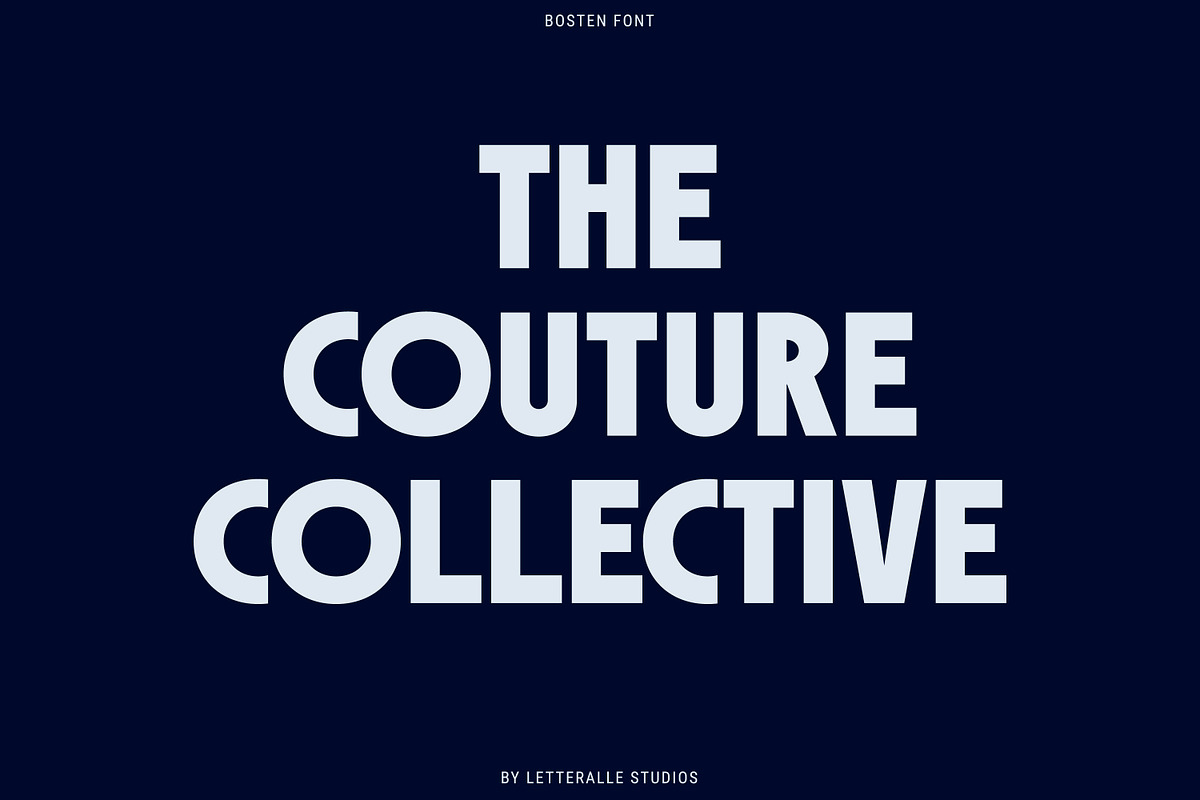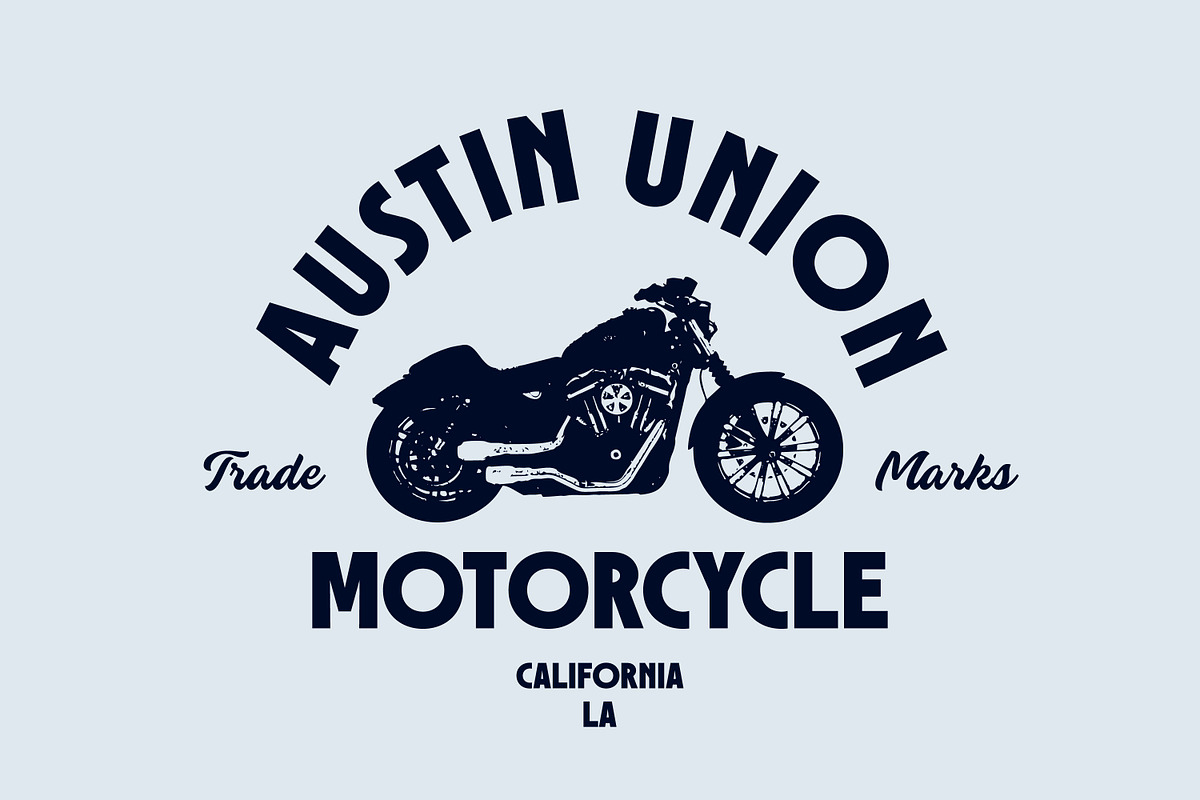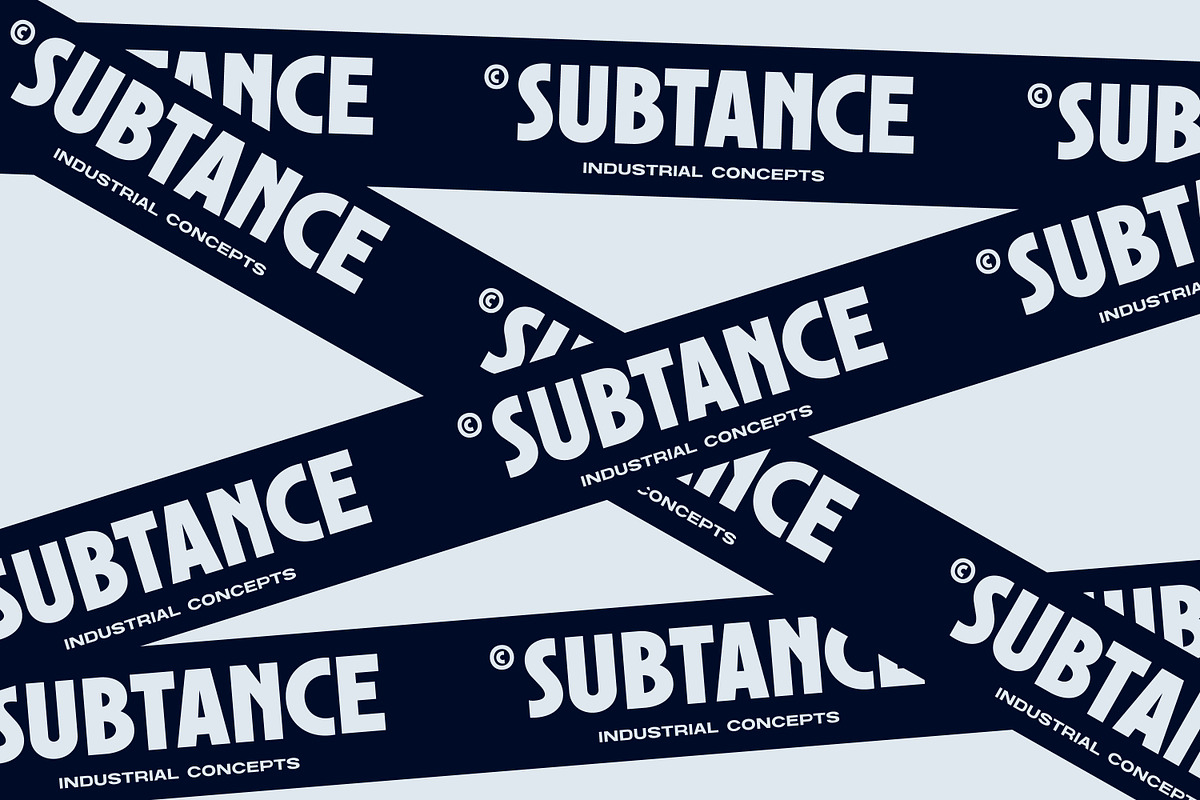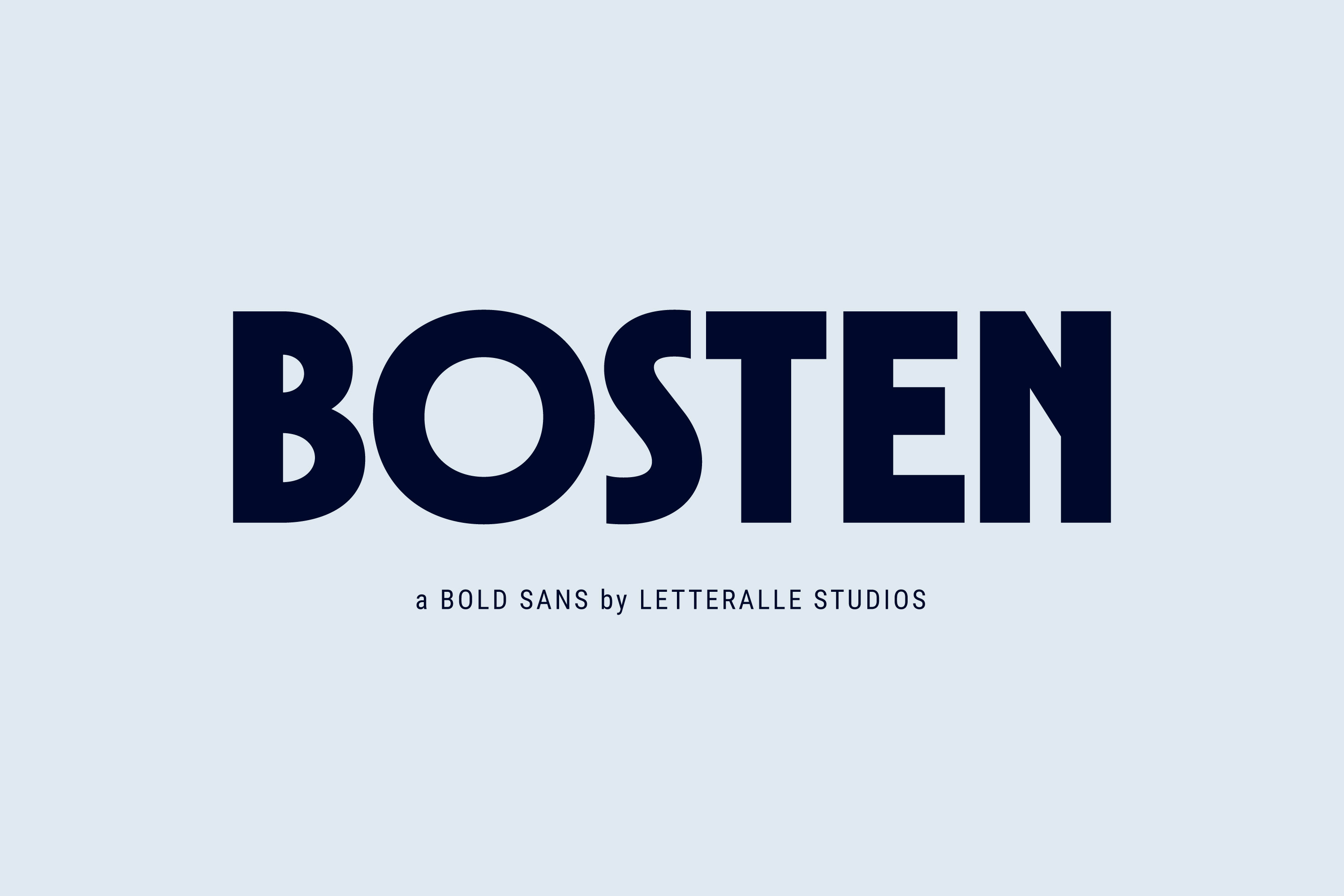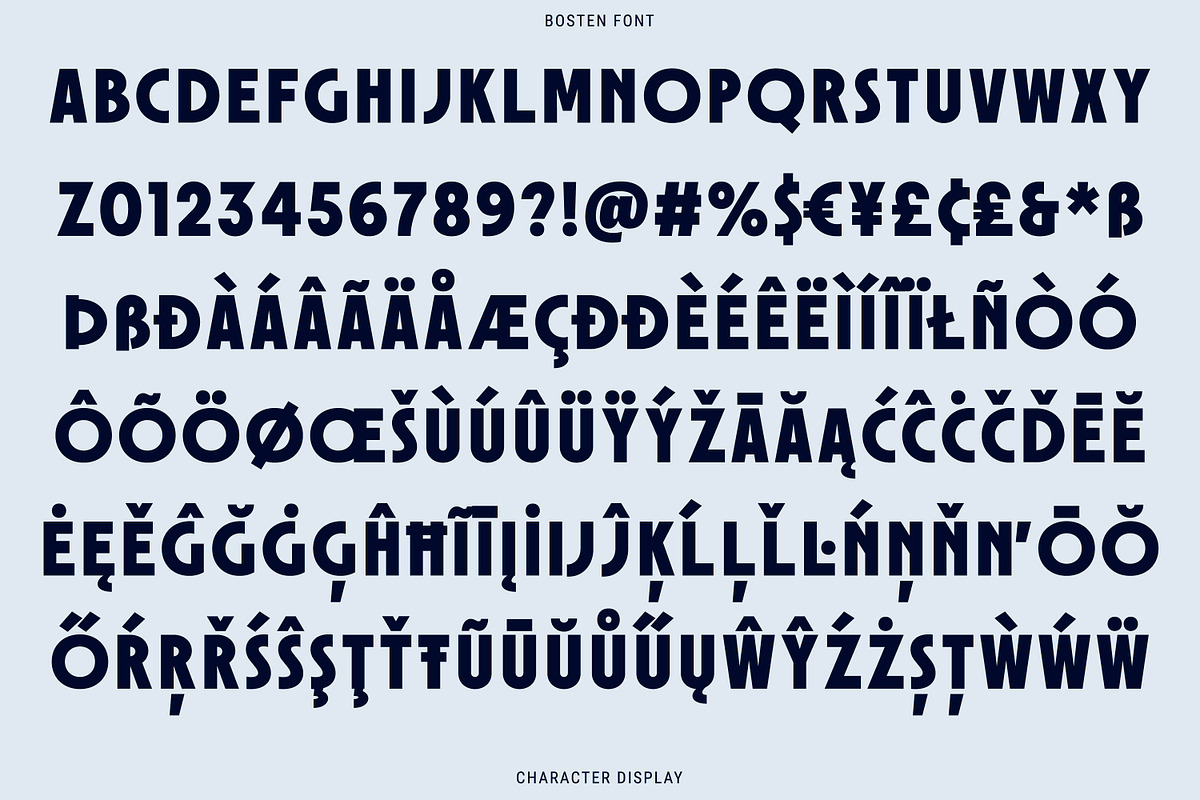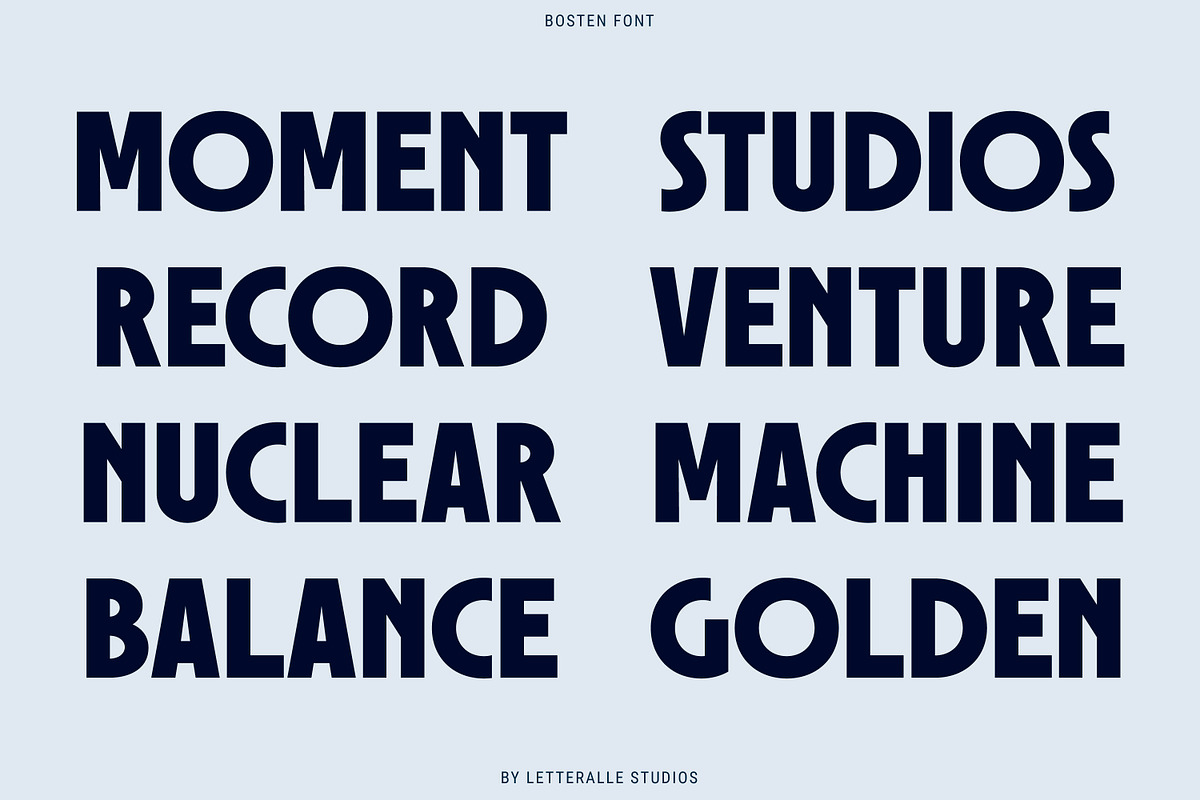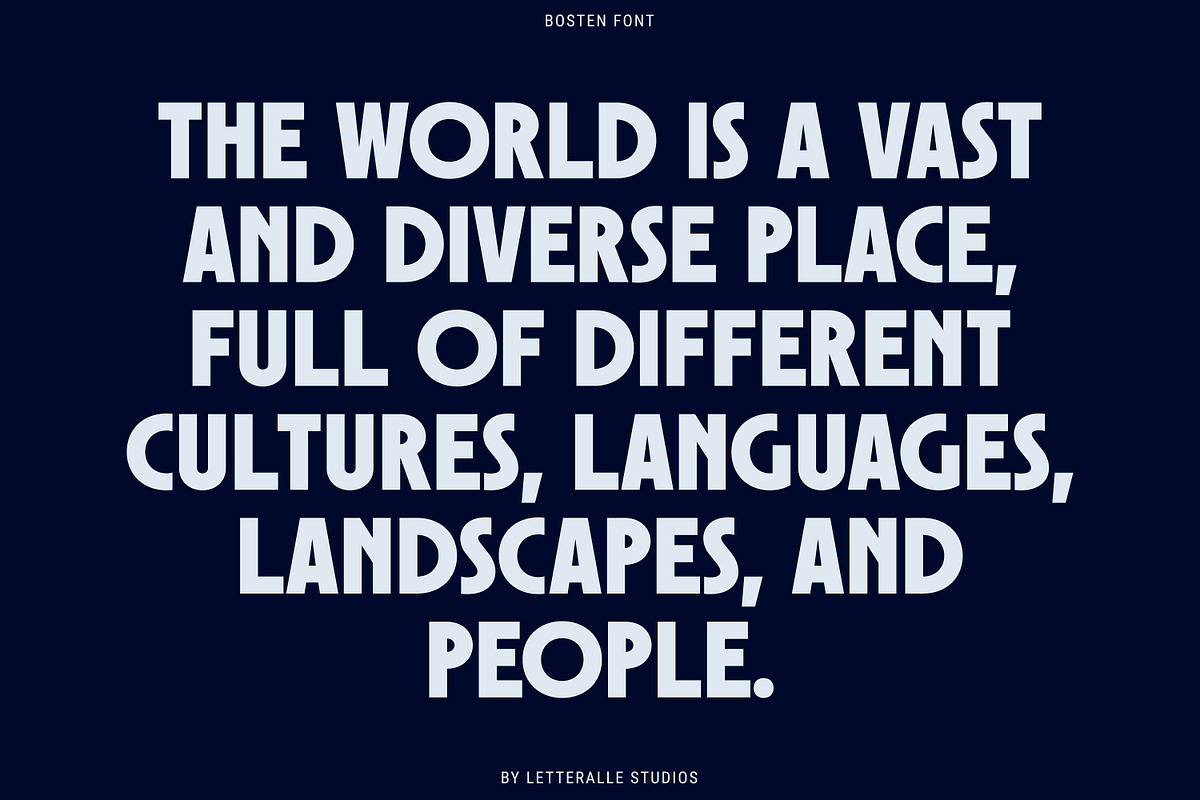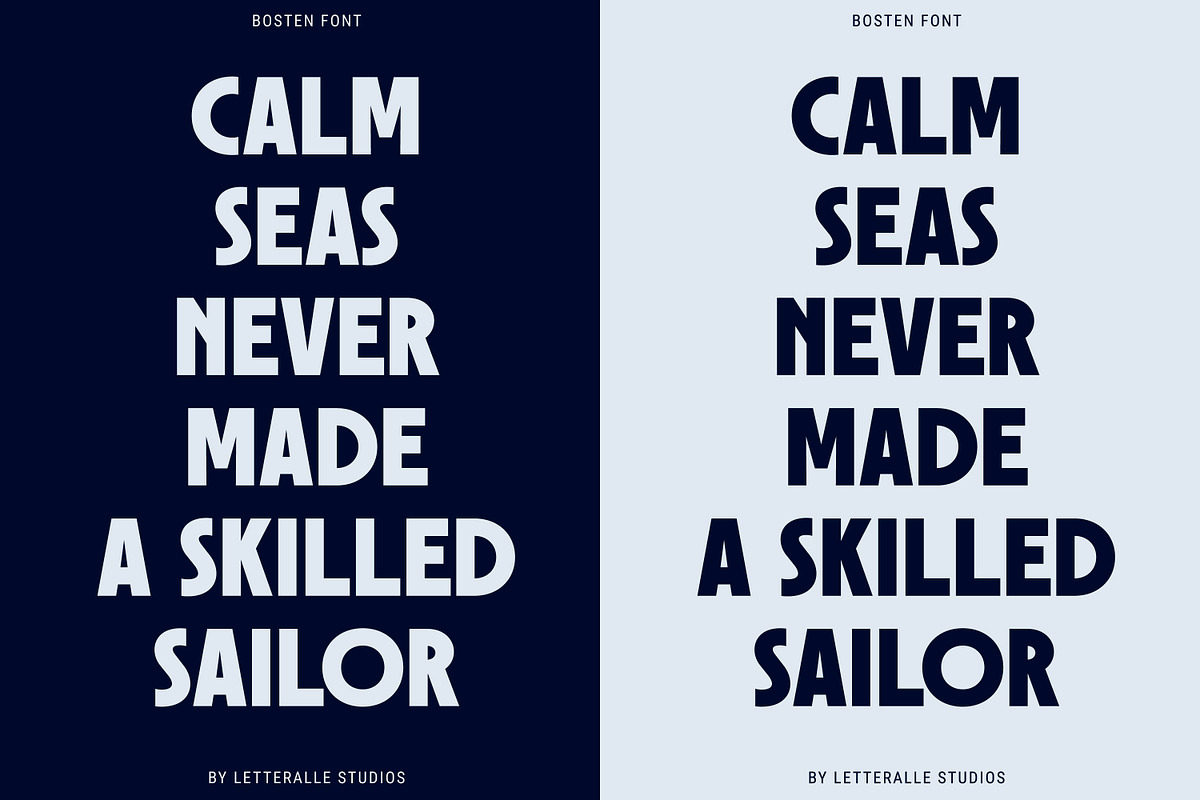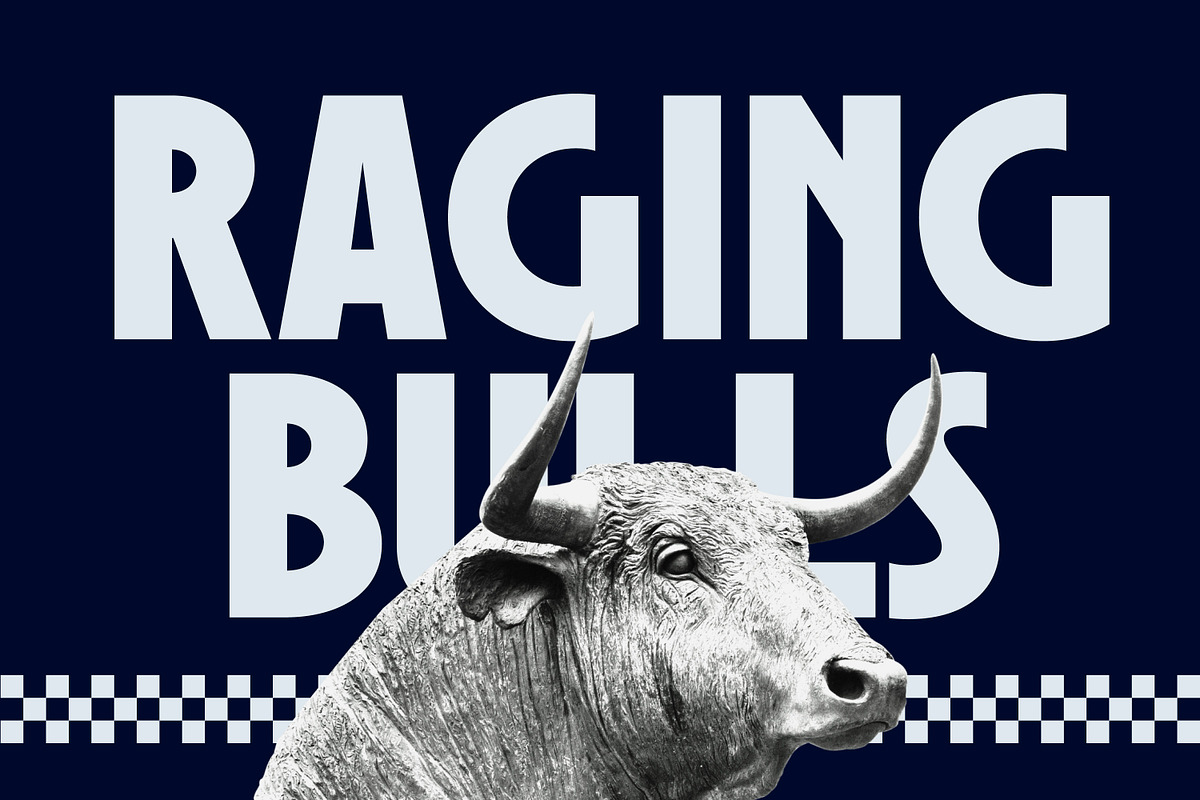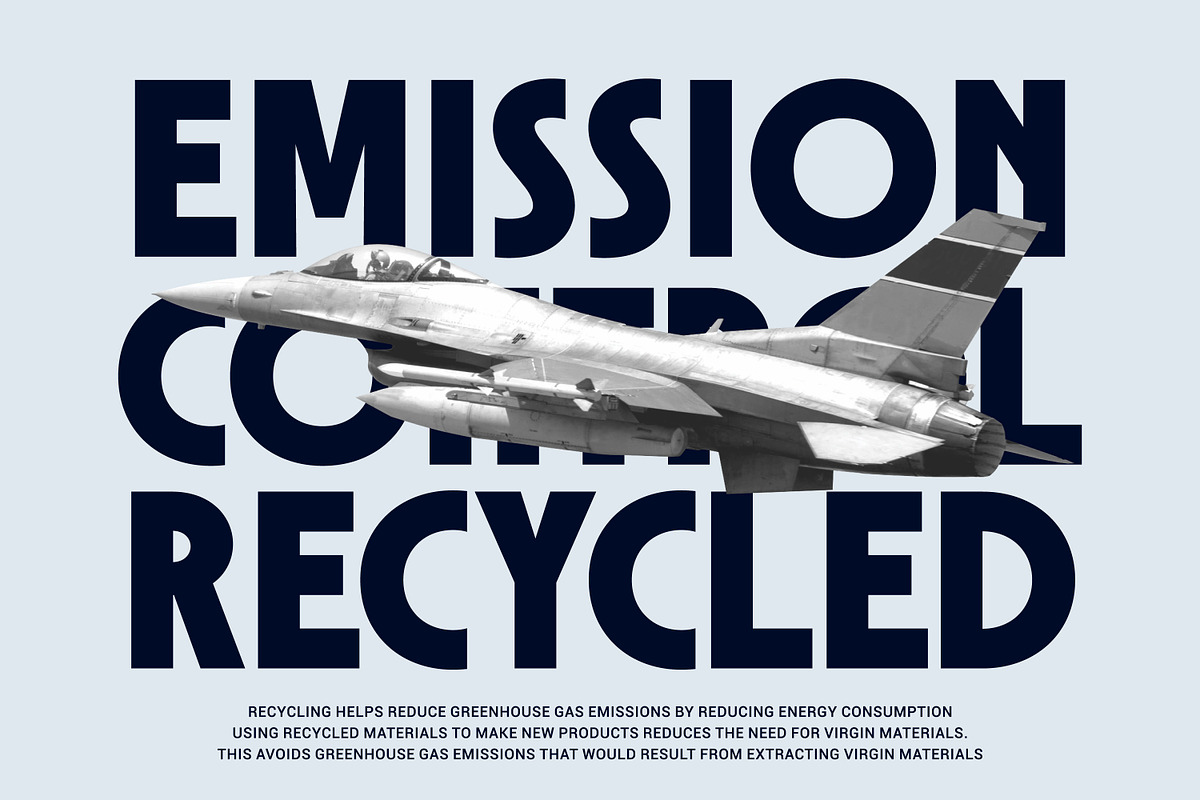
Bosten - Display Font
Introducing the perfect addition to your design!
Bold and masculine font! Bosten is specifically designed to make a strong impact, whether you're creating headlines or crafting brand messaging. With its sleek and powerful lines, this font is sure to grab your audience's attention and leave a lasting impression.
Whether you're creating marketing materials, designing a website, logo design, packaging, ads, clothing, merch, etc, Bosten is the perfect choice. So why wait? Take your branding to the next level with this powerful font today!